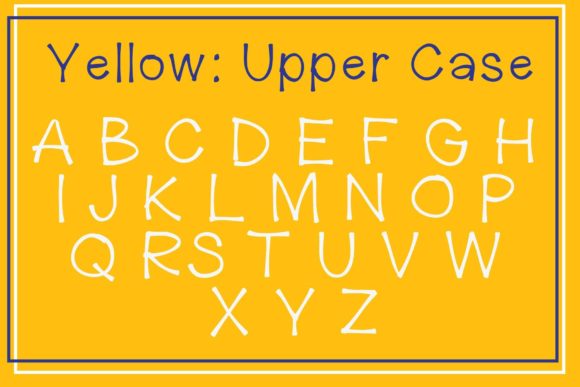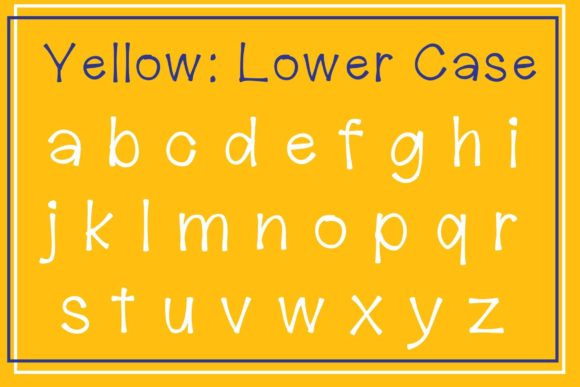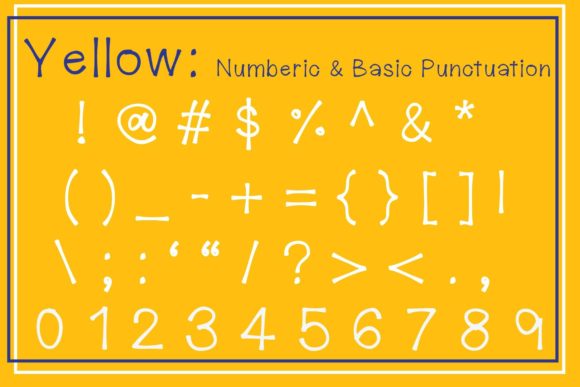
Yellow Font
About Yellow Font
Yellow is a simple handwritten font that can be used for all chalkboard quotes or teaching material! Its authentic look and feel will add a personal and realistic feel to your designs.